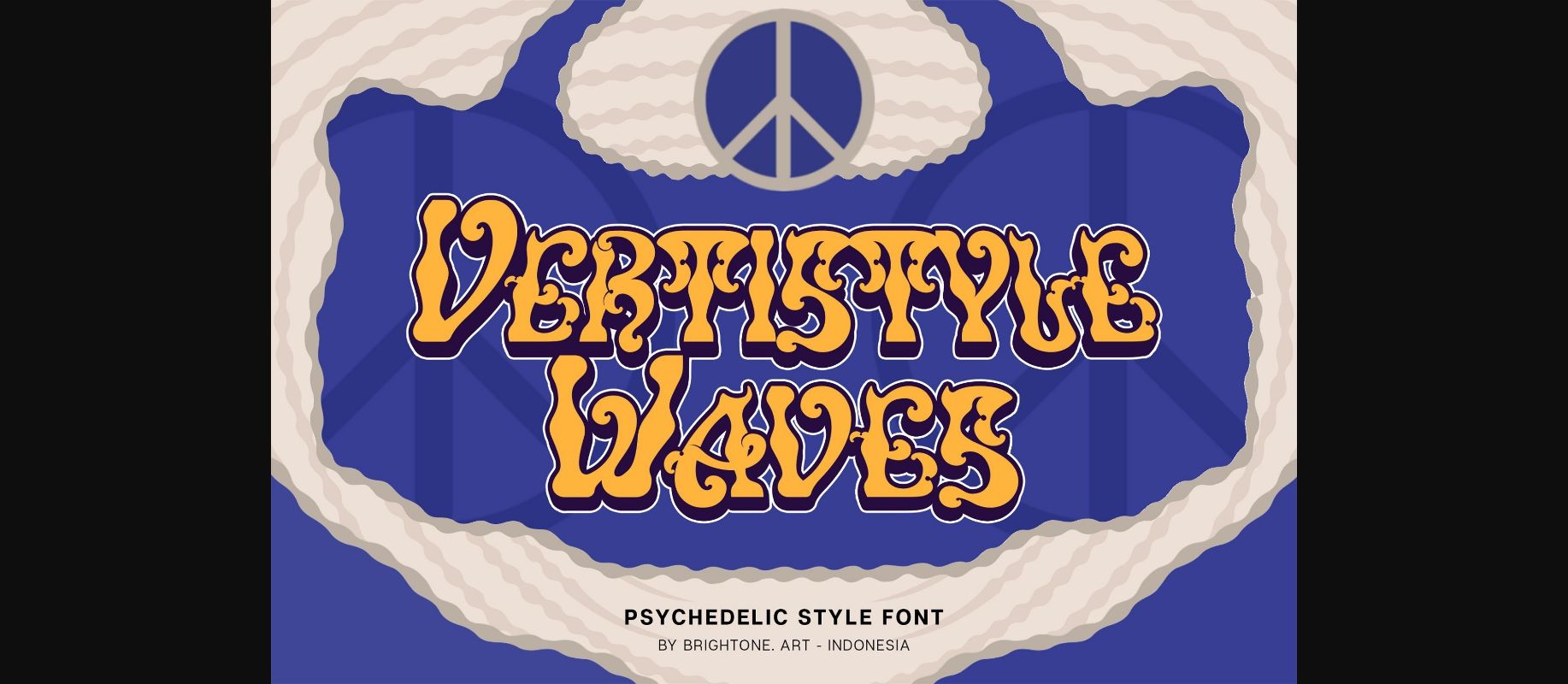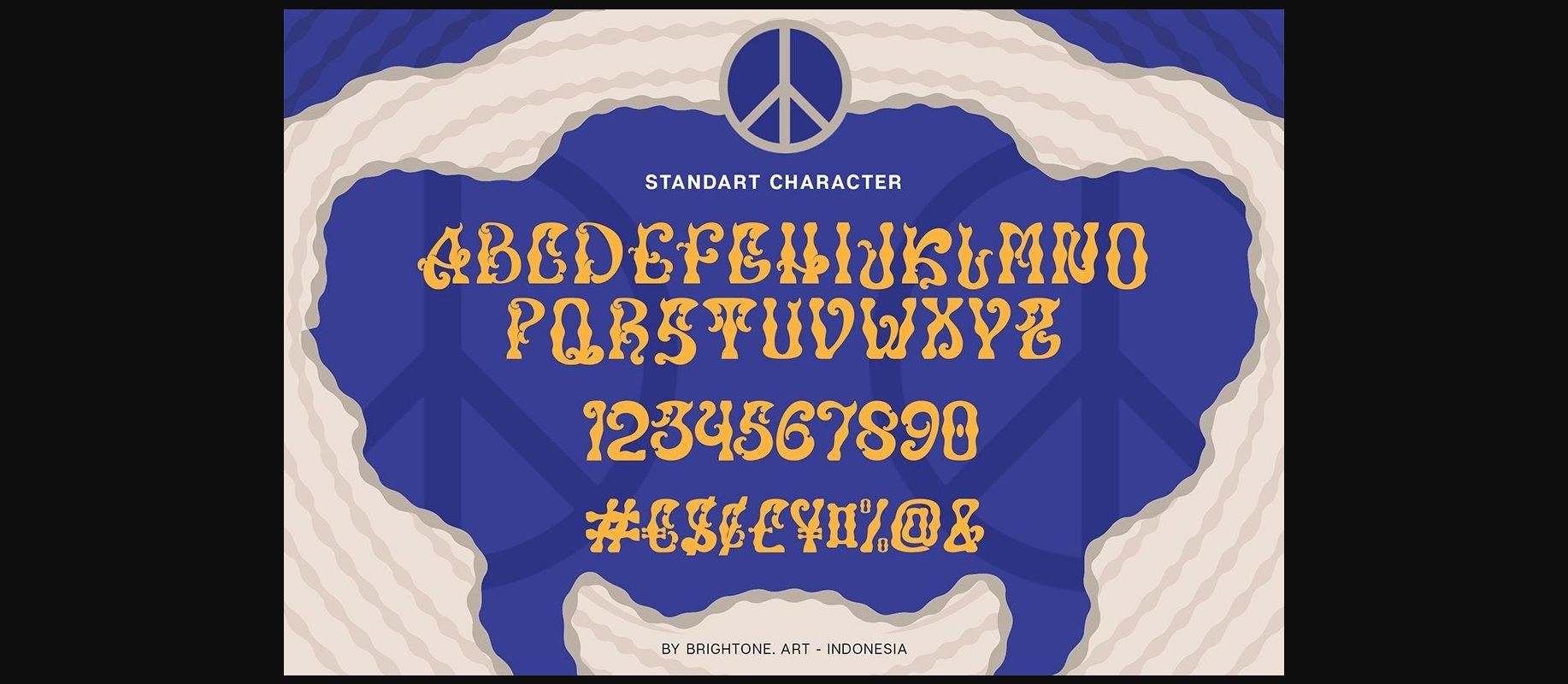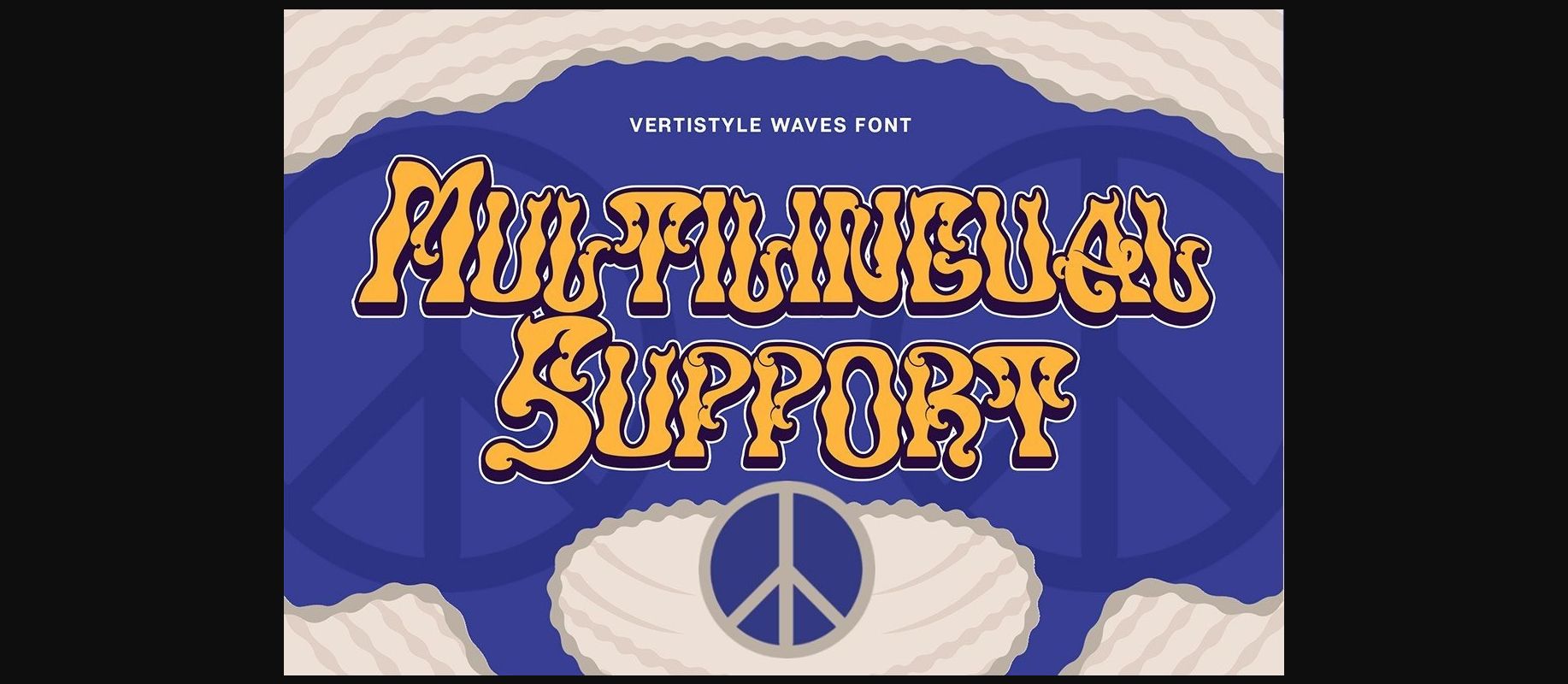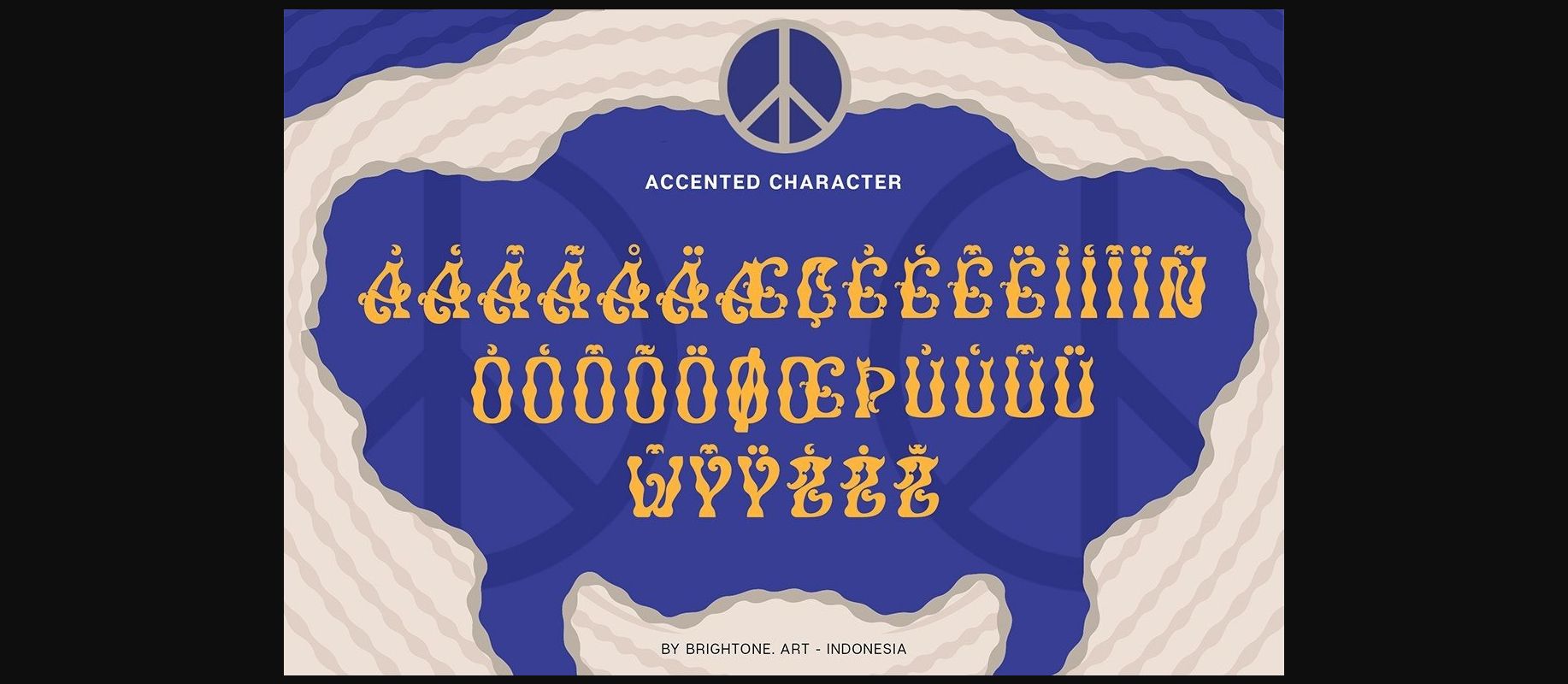
About Vertistyle Waves Font
Vertistyle Waves is a psychedelic font with a good style included
Vertistyle Waves font is suitable to use for all-purpose for your logo lettering, logo, label, packaging, pouch bag sticker, branding, and many more